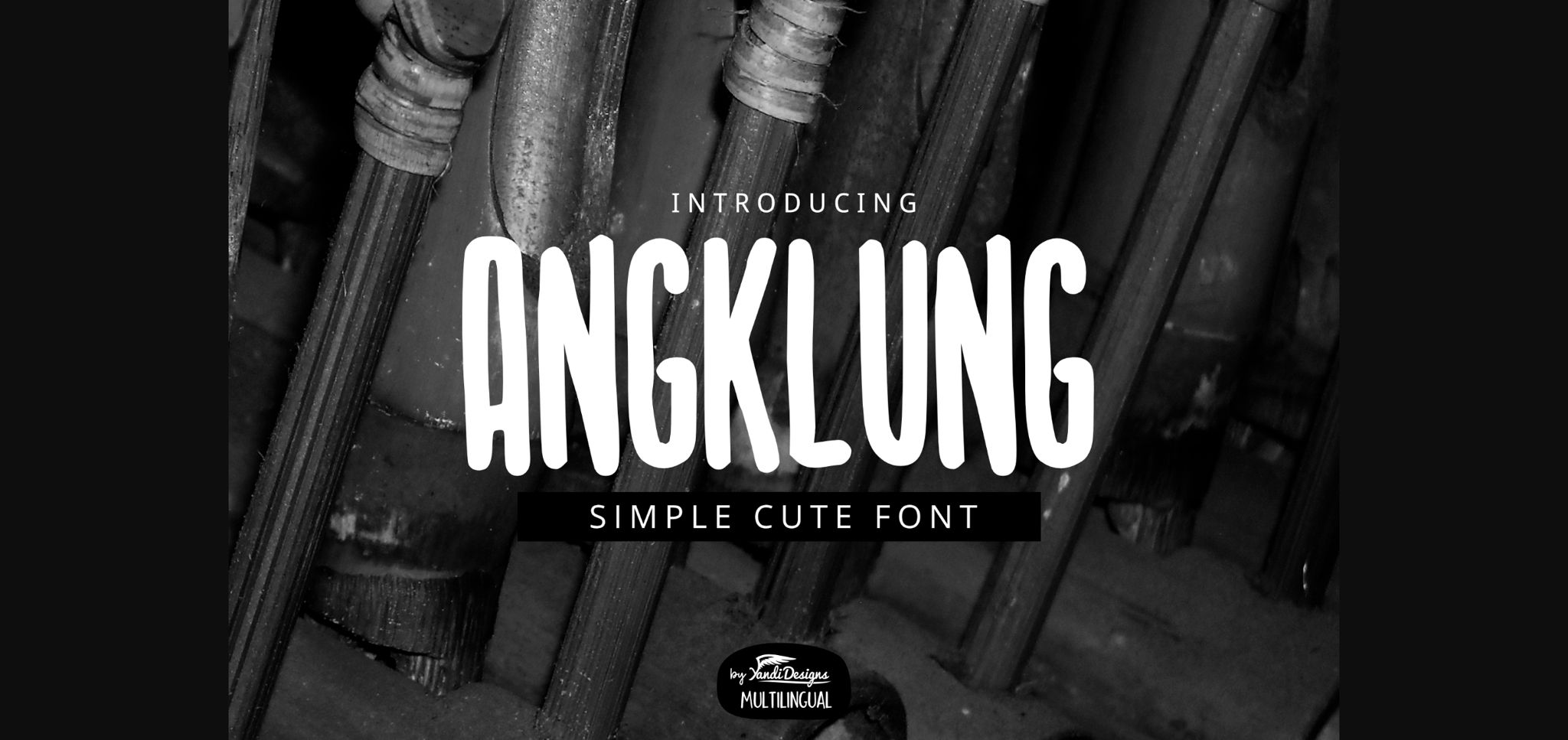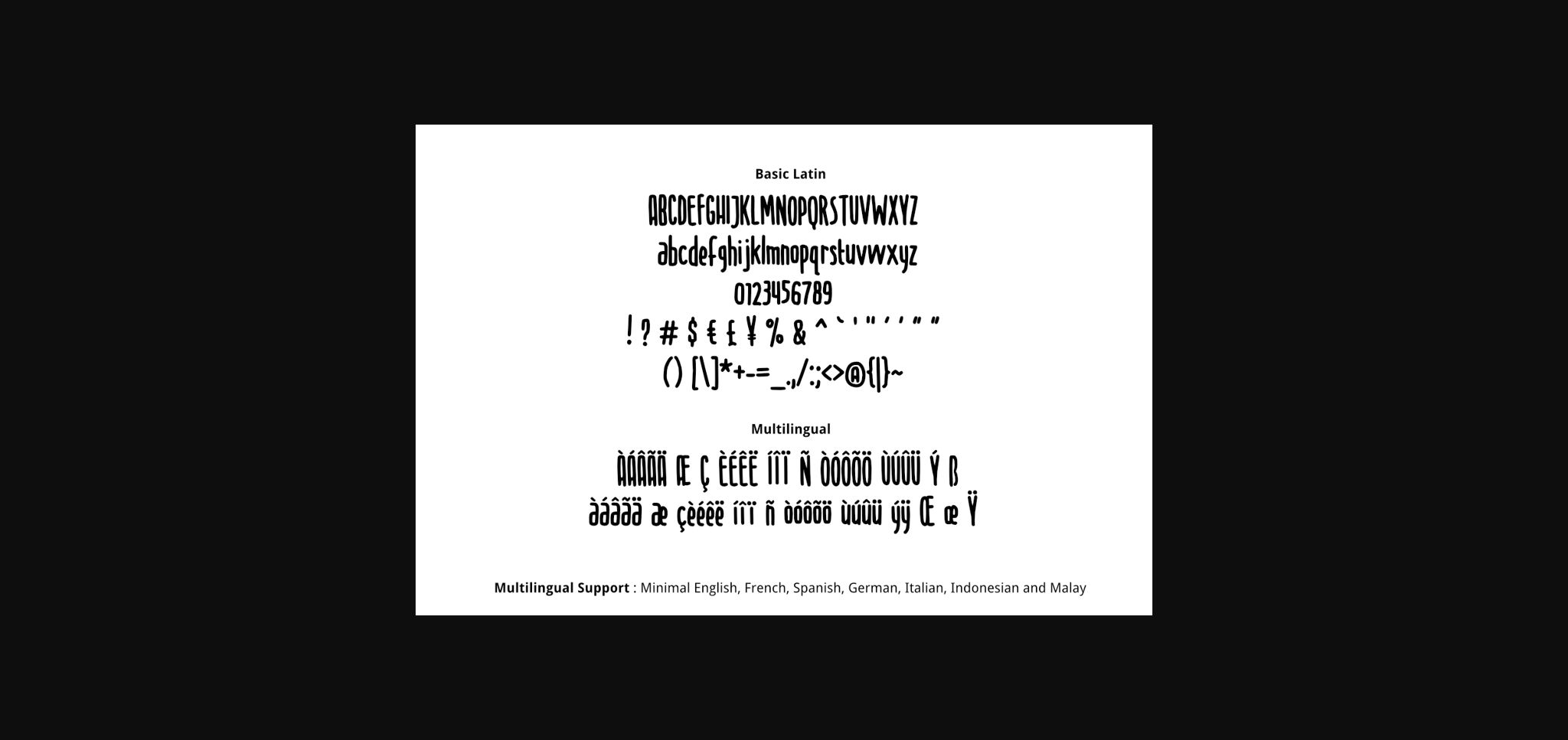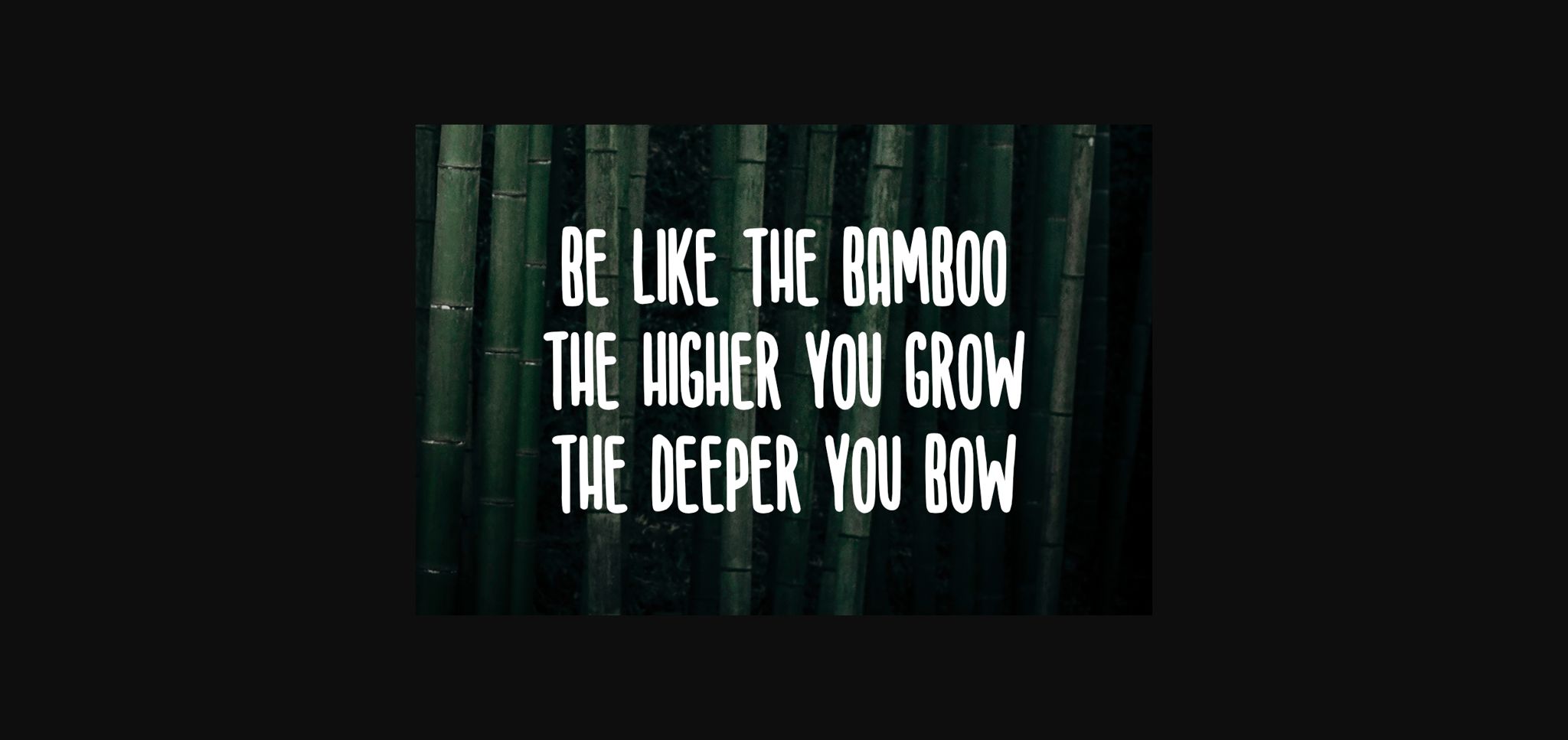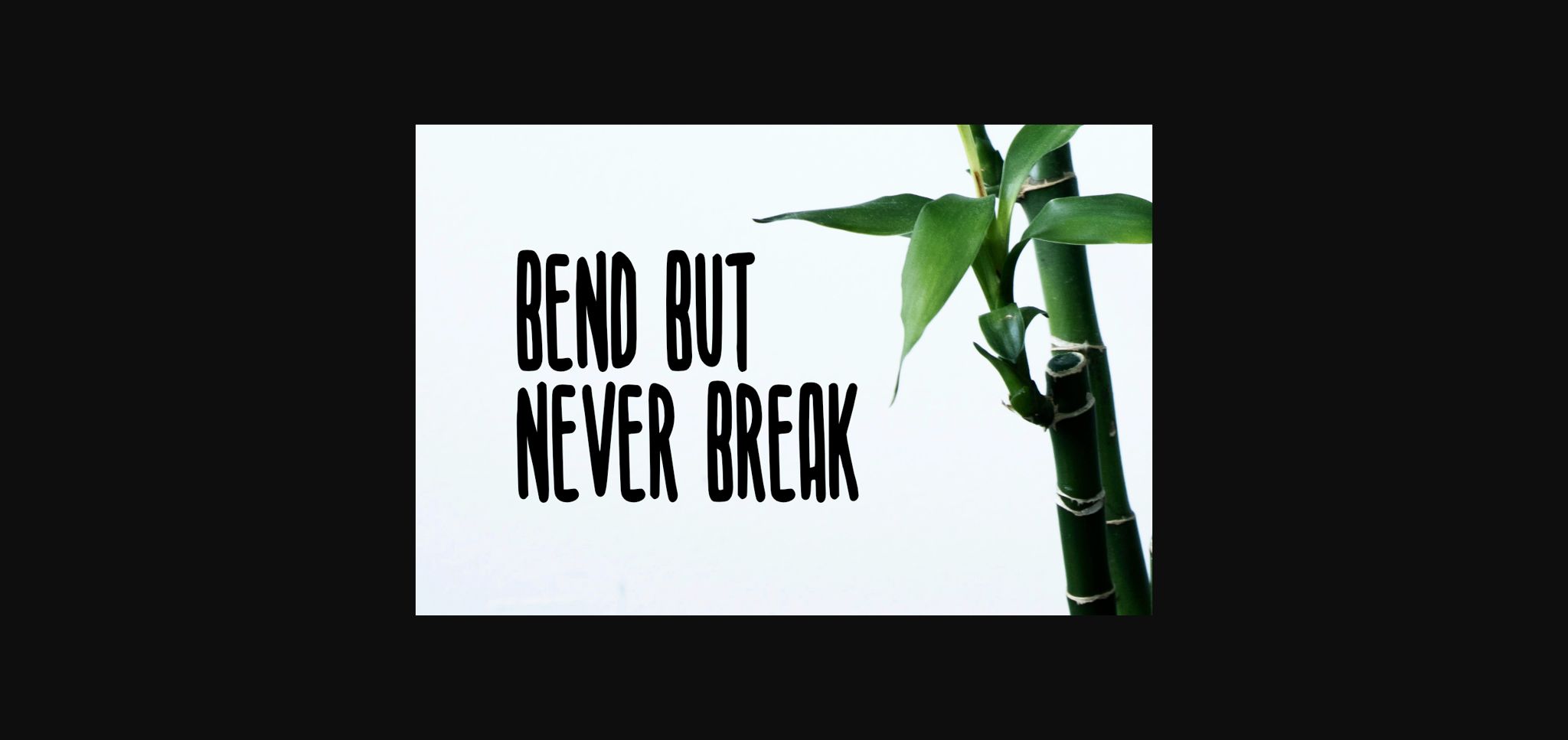
HomeSans Serif FontsAngklung Font Sans Serif Fonts Angklung Font FacebookXPinterestWhatsApp 1 of 6 ... Angklung Font Poster 2... Angklung Font Poster 3... Angklung Font Poster 4... Angklung Font Poster 5... Angklung Font Poster 6... About Angklung Font Angklung is a simple and tall lettered sans serif font. It is the best choice for creating eye catching logos, branding and quotes. DOWNLOAD NOW People also explored Night Light Font Baby Mentani Font Foxlove Font Benjamin Font Reader Glory of Love Font Anggeliana Font Formentera Wood | Beer Mockup Samila Font 324 0 TagsAngklung Font Previous articleJerawag Berroys FontNext articleFrend Strep Font LEAVE A REPLY Cancel reply Comment: Please enter your comment! Name:* Please enter your name here Email:* You have entered an incorrect email address! Please enter your email address here Website: Save my name, email, and website in this browser for the next time I comment. Personal Use Free Groomer Personal Use Free Read more about this font Eaglese Personal Use Free Read more about this font Mold Papa Personal Use Free Read more about this font Airmole Personal Use Free Read more about this font BLOG Elegant Wedding Invitation Fonts – Handwritten & Script Fonts Elegant Wedding Invitation Fonts Your wedding day is one of the most important moments of your life, and every detail matters—including your invitation design. Our... Best Fonts for T-Shirt Design – Top 2025 Picks Top 7 Google Fonts Alternatives for Faster and Privacy-Friendly Web Design (2025) How to Cut Any Font on Cricut: Convert a Font to SVG (Free)